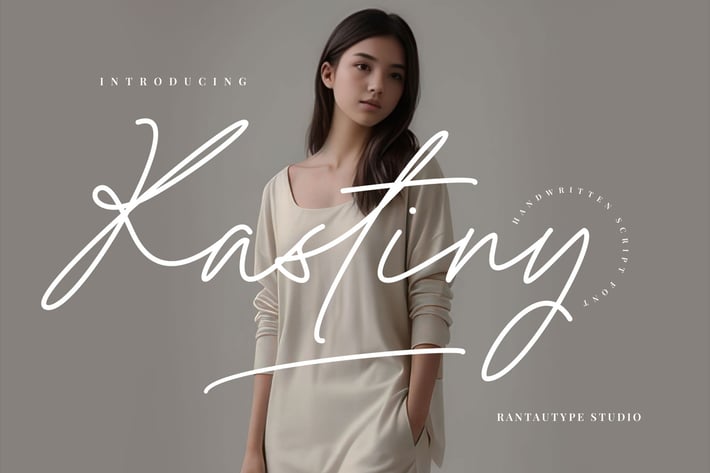
Kastiny Handwritten Script Font
Kastiny is handwritten script font made by rantautype studio. We make font look classy, elegant, modern and easy to use. Kastiny bring sophisticated of stylish font to make you design project more stand out,
Kastiny is a perfectly choice for any creative endeavor, chic, lifestyle design such as logos, advertisements, watermark on photography, stationery, branding project, display and magazine, invitation, corporate brand, product design, label, business project and other project with handwritten taste.
Alternate and Ligature